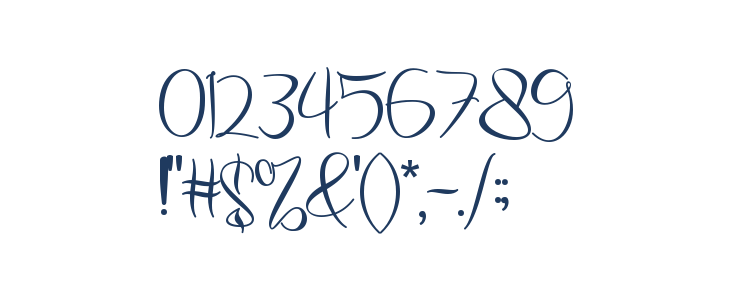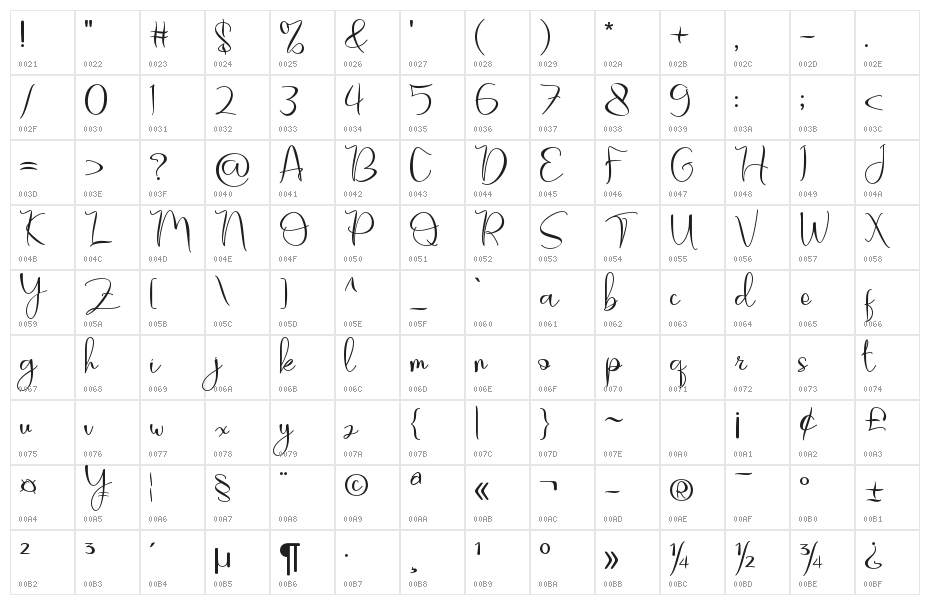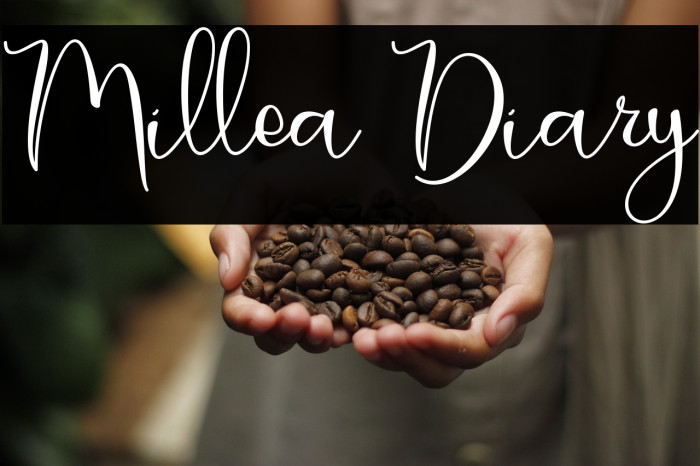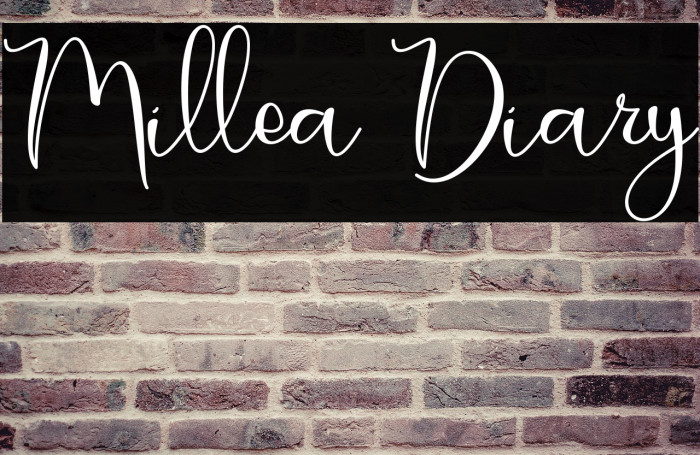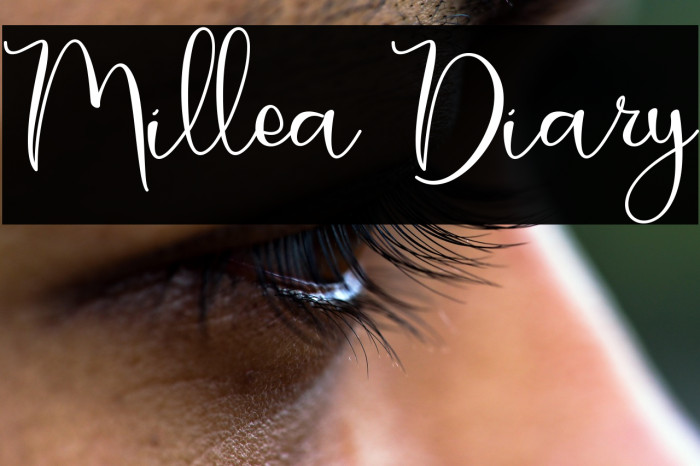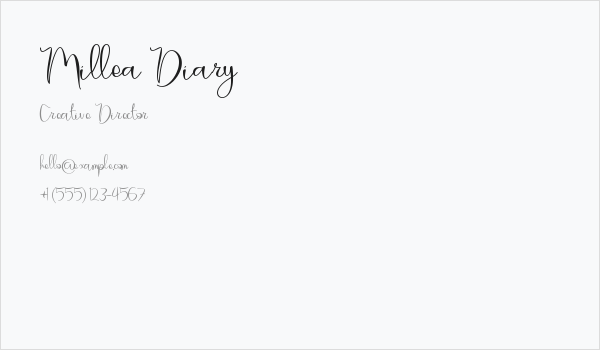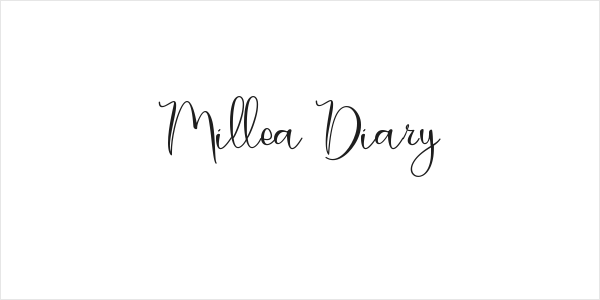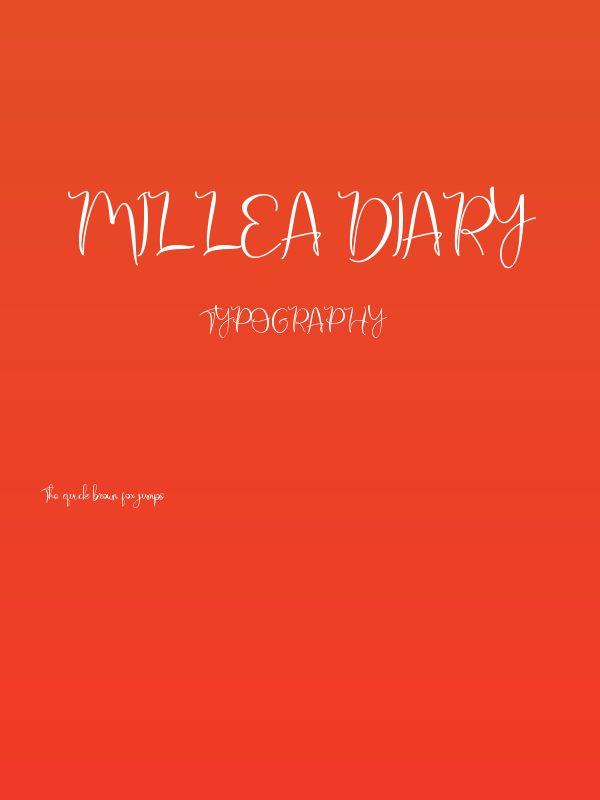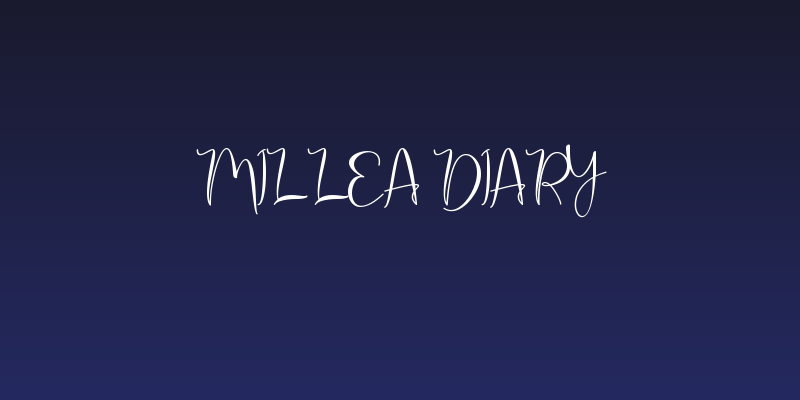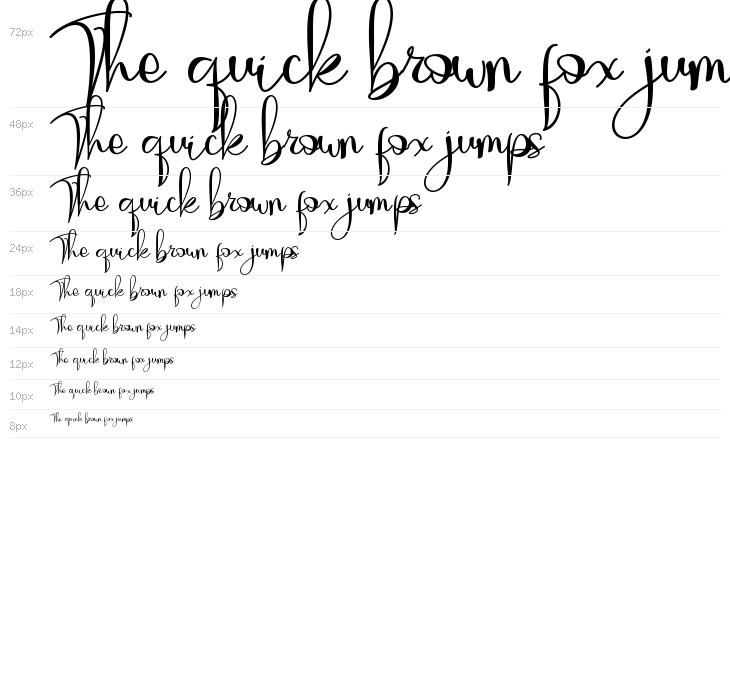
Millea Diary Font
Millea Diary Description
This font features a whimsical and flowing script style, characterized by its elegant and fluid letterforms. The uppercase letters exhibit a playful yet sophisticated design, with varying stroke widths that add a dynamic feel. The lowercase letters continue this theme, with some characters featuring loops and swirls that enhance the font's decorative nature. The numerals are consistent with the overall style, maintaining a balance between readability and artistic flair. Special characters are integrated seamlessly, offering a cohesive look across all glyphs. This font's unique personality makes it ideal for creative projects that require a touch of elegance and individuality.